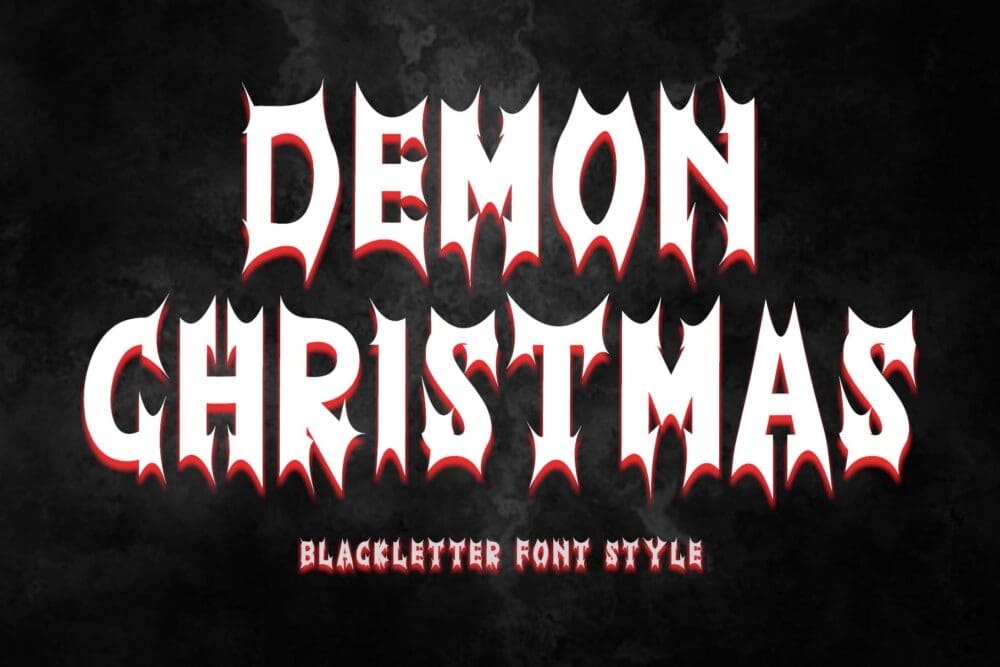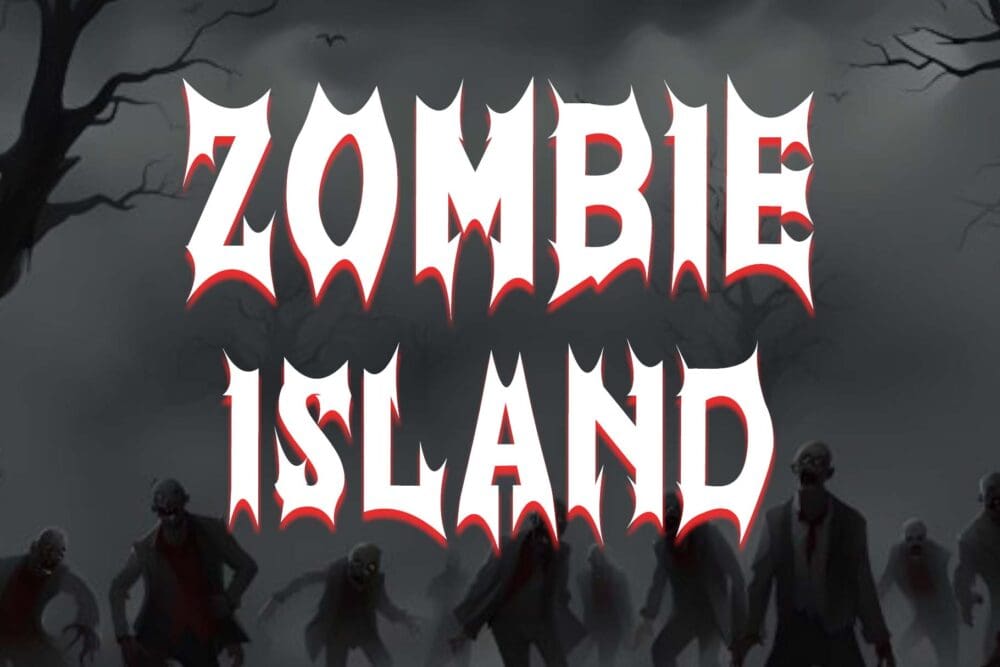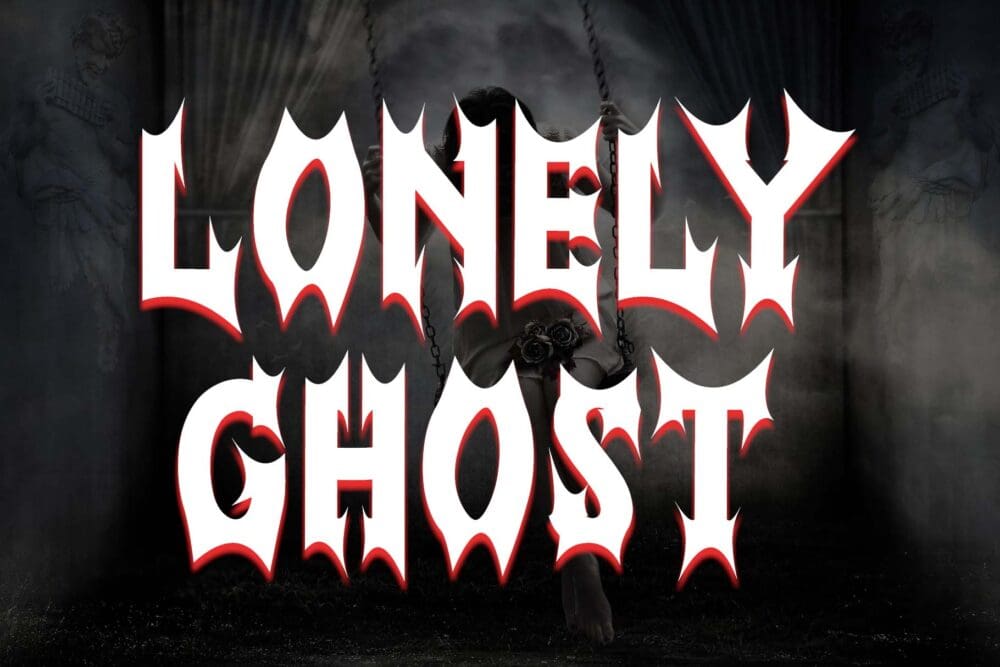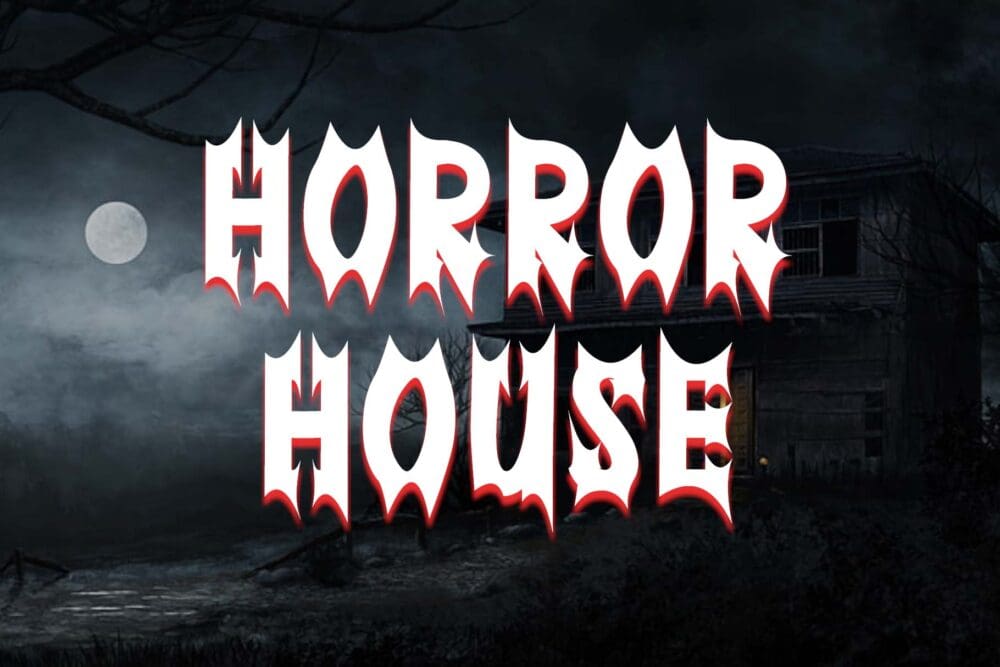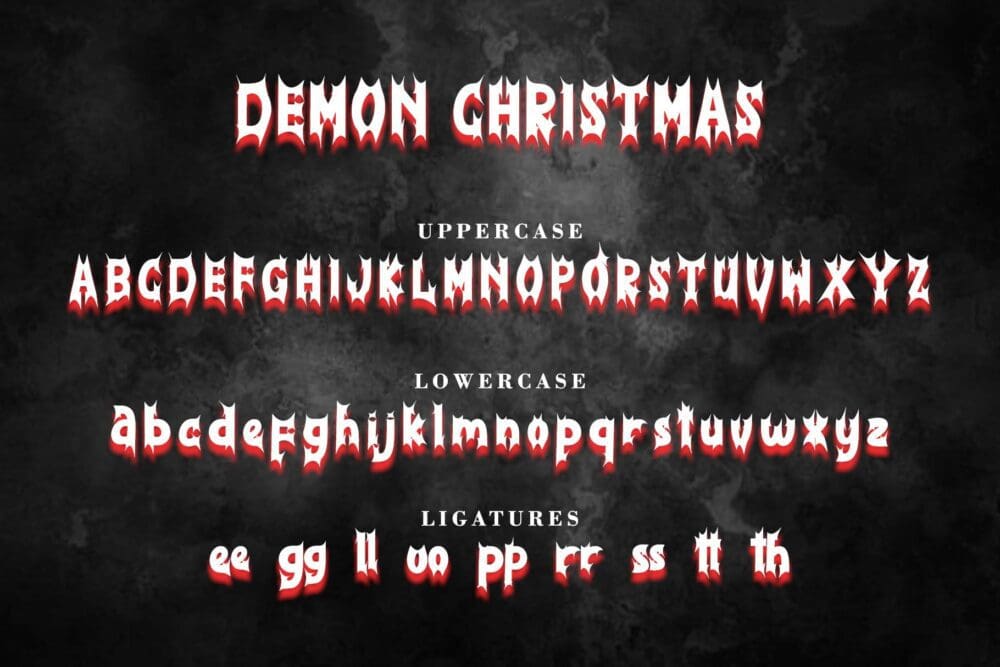
Demon Christmas Font
Demon Christmas is a spooky horror blackletter font. This font is equipped with uppercase, lowercase, ligatures, numerals, punctuations and multilingual support. It is very suitable for use for Halloween moments, invitations, metal concerts, horror movies, horror comics, Christmas, autumn and others.